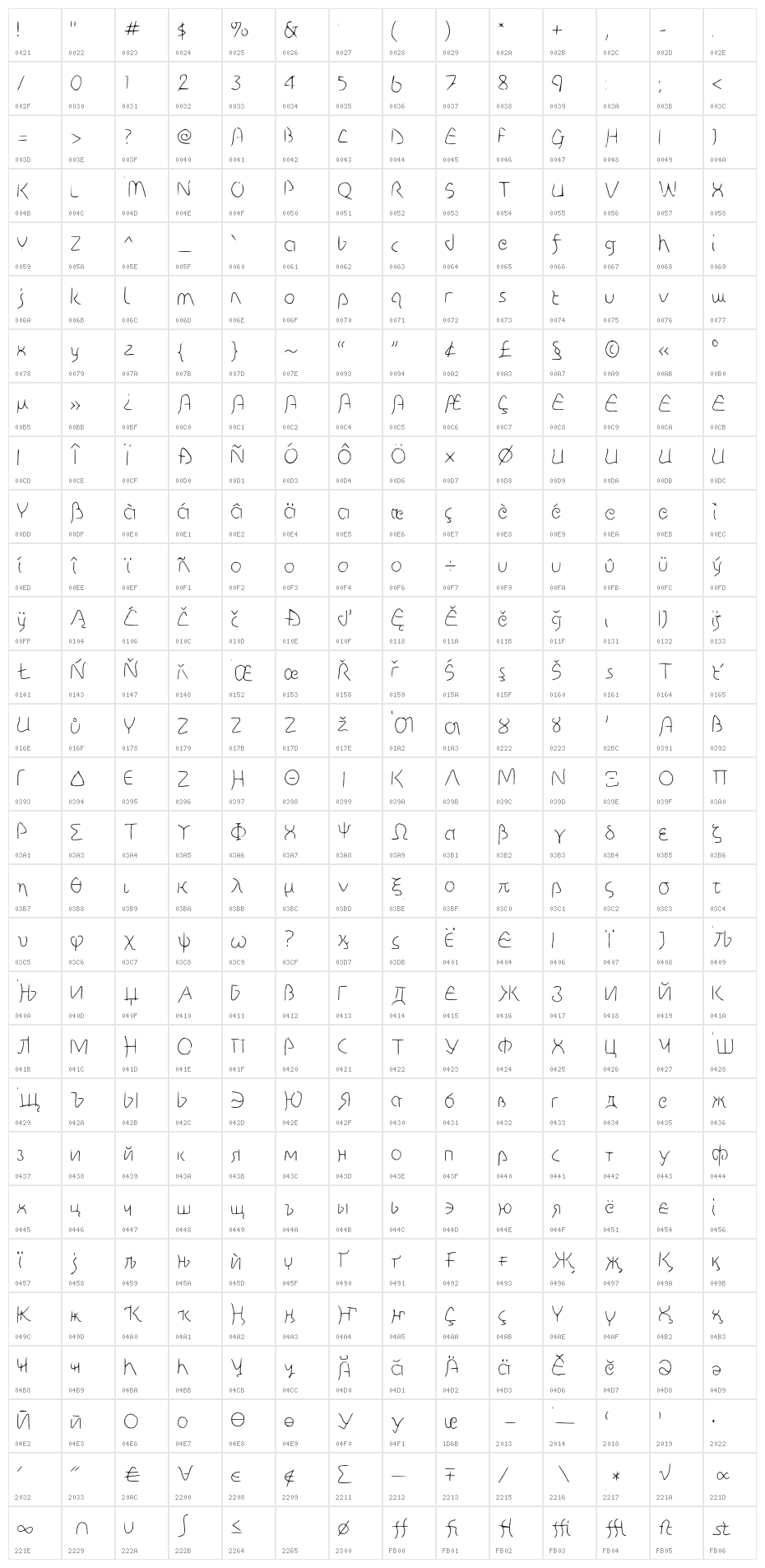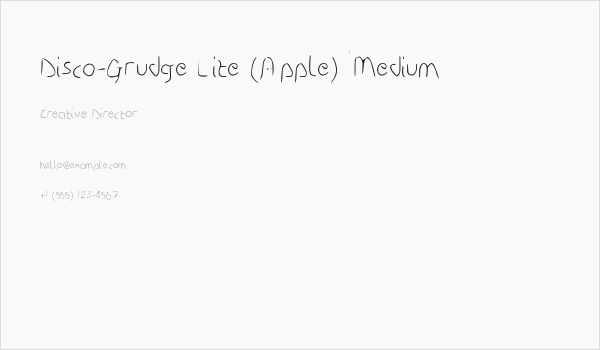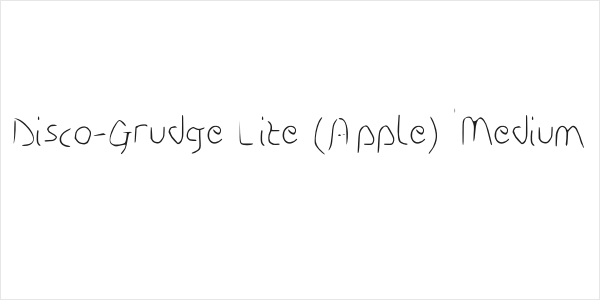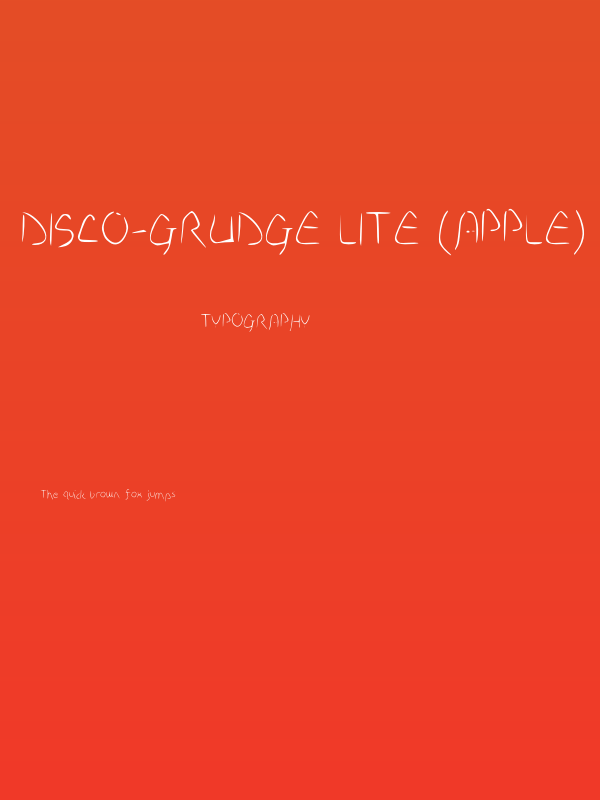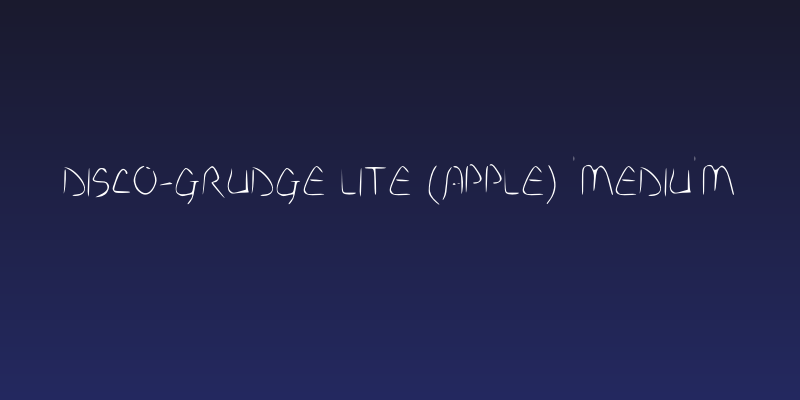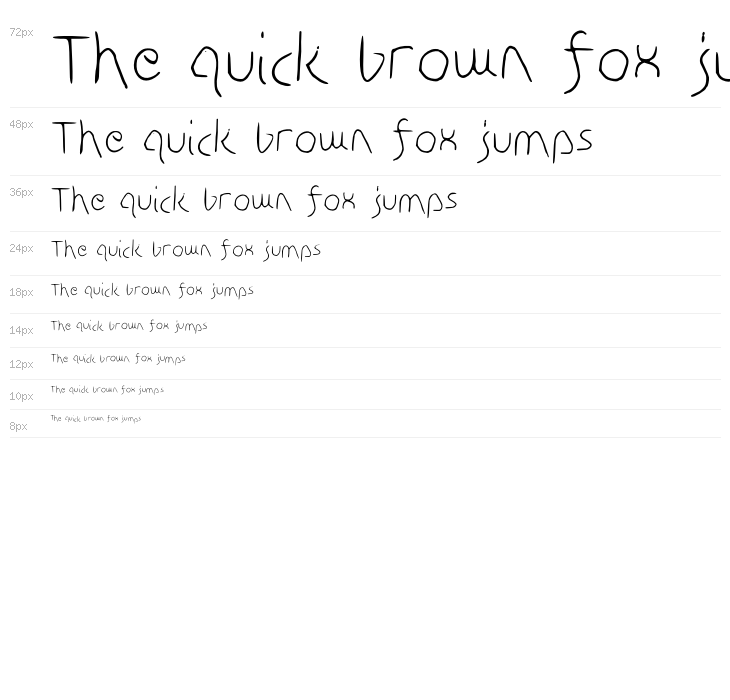
Disco-Grudge Lite (Apple) Medium Font
Disco-Grudge Lite (Apple) Medium Description
This font features a unique and playful design with a hand-drawn aesthetic. The characters are slightly irregular, giving them a whimsical and informal appearance. The strokes are thin and exhibit a low contrast, maintaining a consistent width throughout. The overall style is modern with a touch of artistic flair, making it suitable for creative projects. The uppercase letters are tall and narrow, while the lowercase letters are more rounded and open. The numbers and special characters follow the same playful style, adding to the font's cohesive look.
| Use Case | Logos, Posters, Invitations |
| Proposed Projects | Ideal for creative projects such as posters, invitations, and branding materials that require a fun and informal touch. |